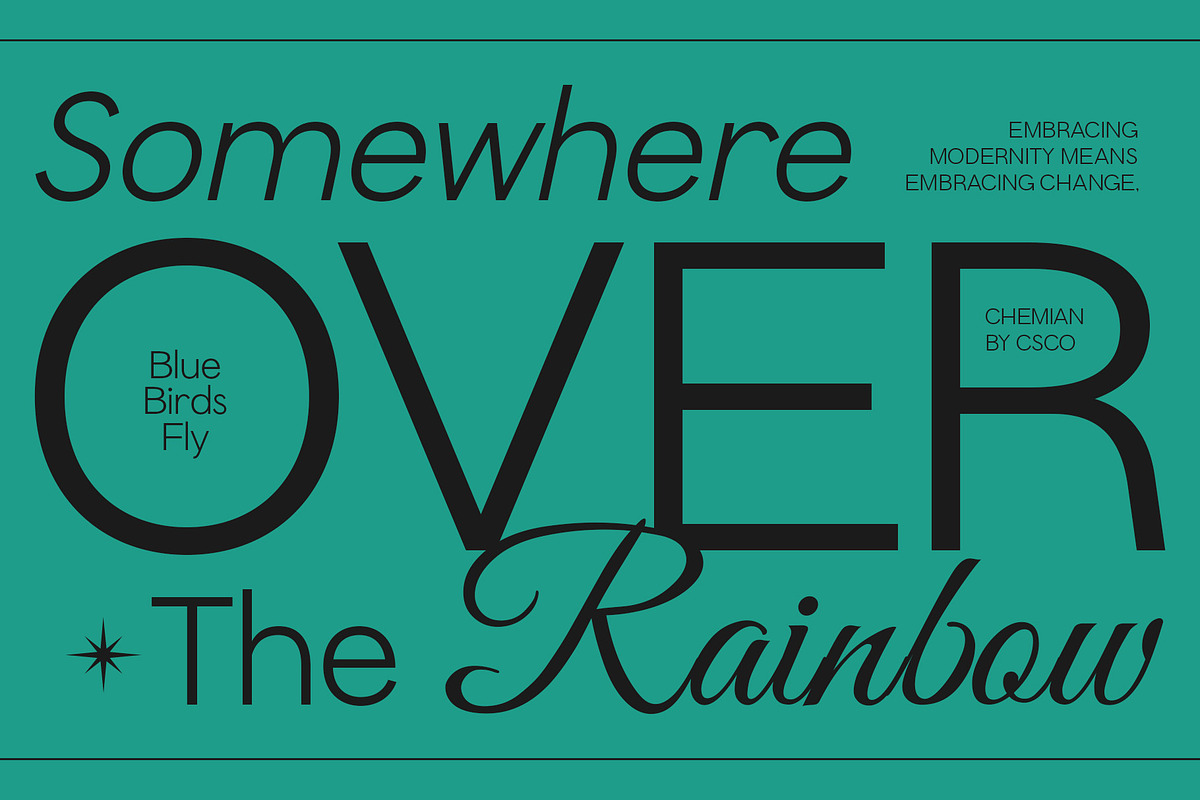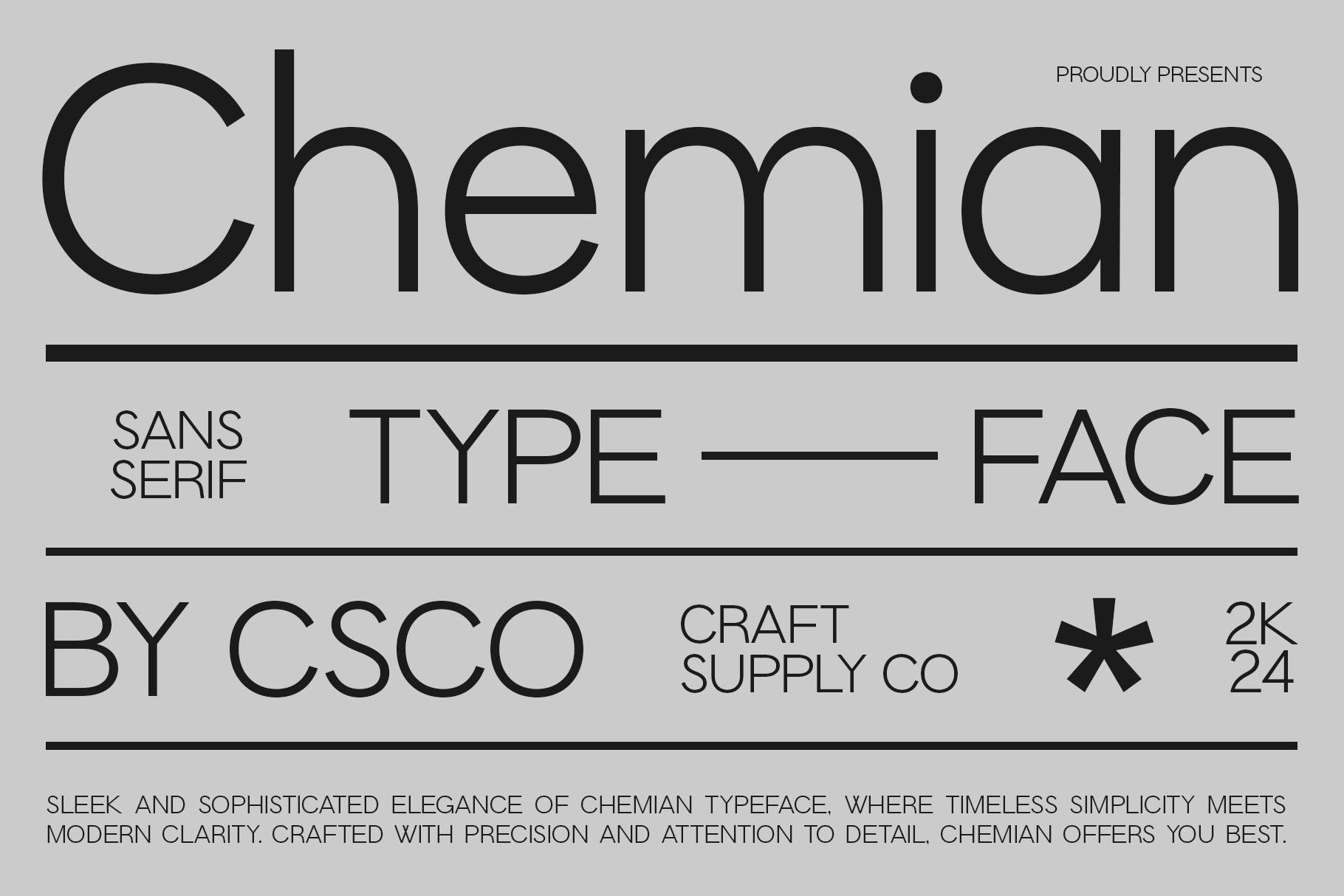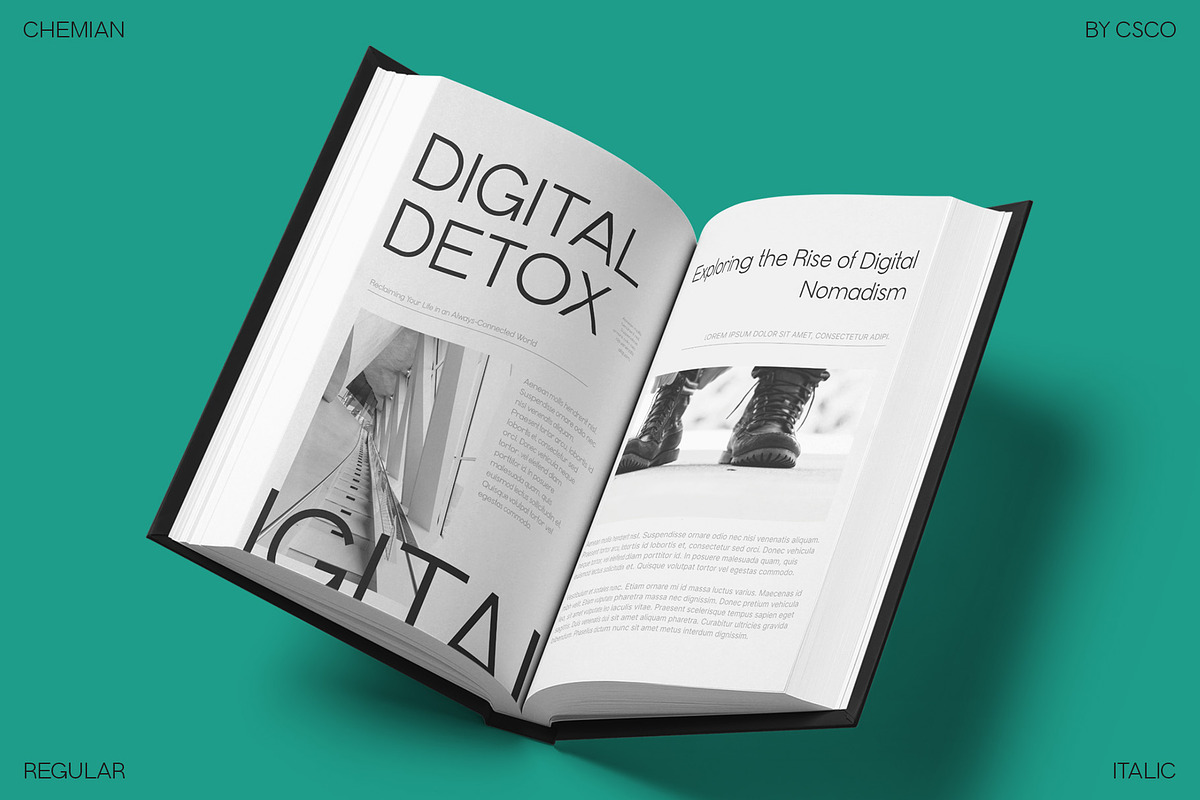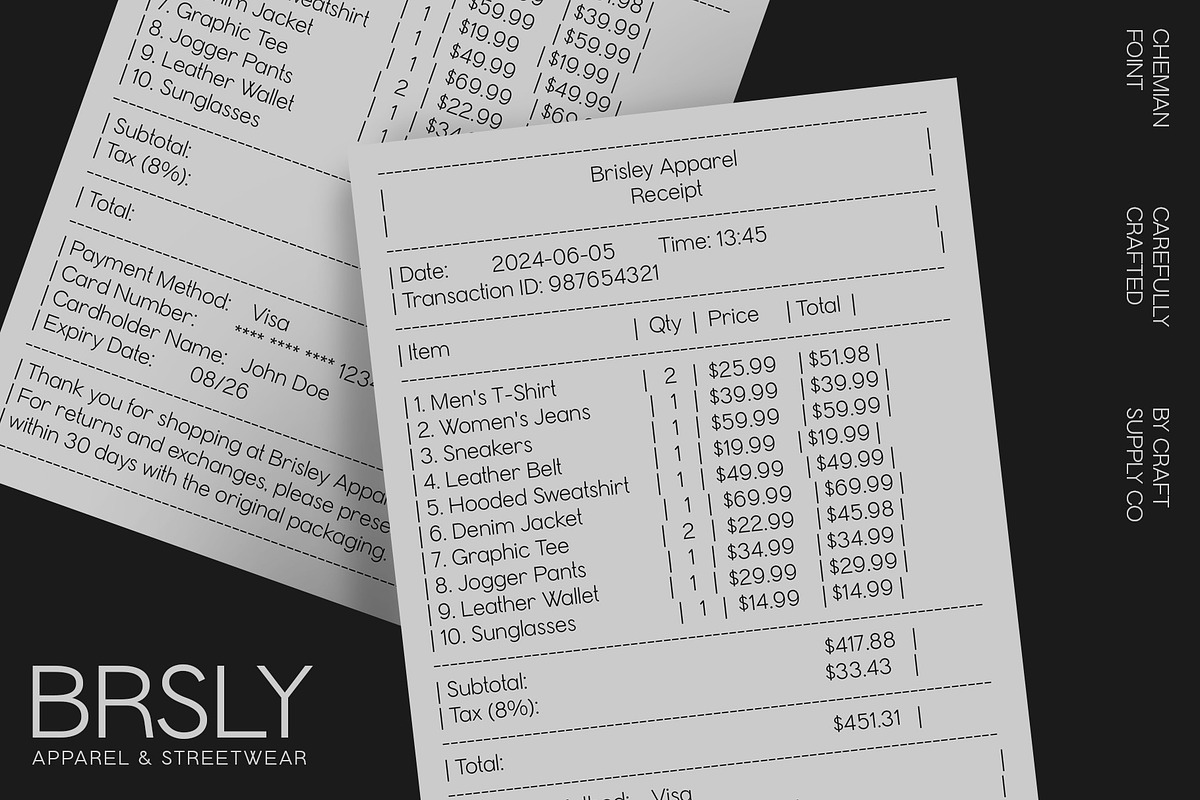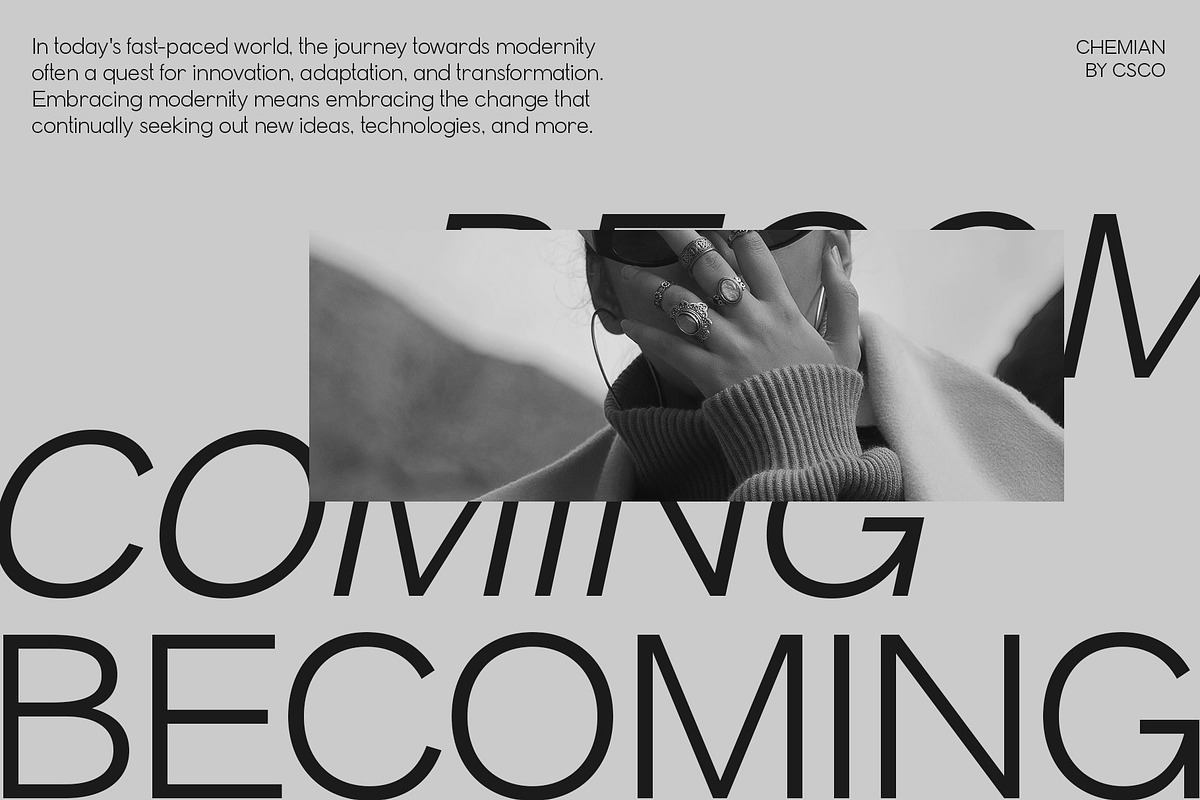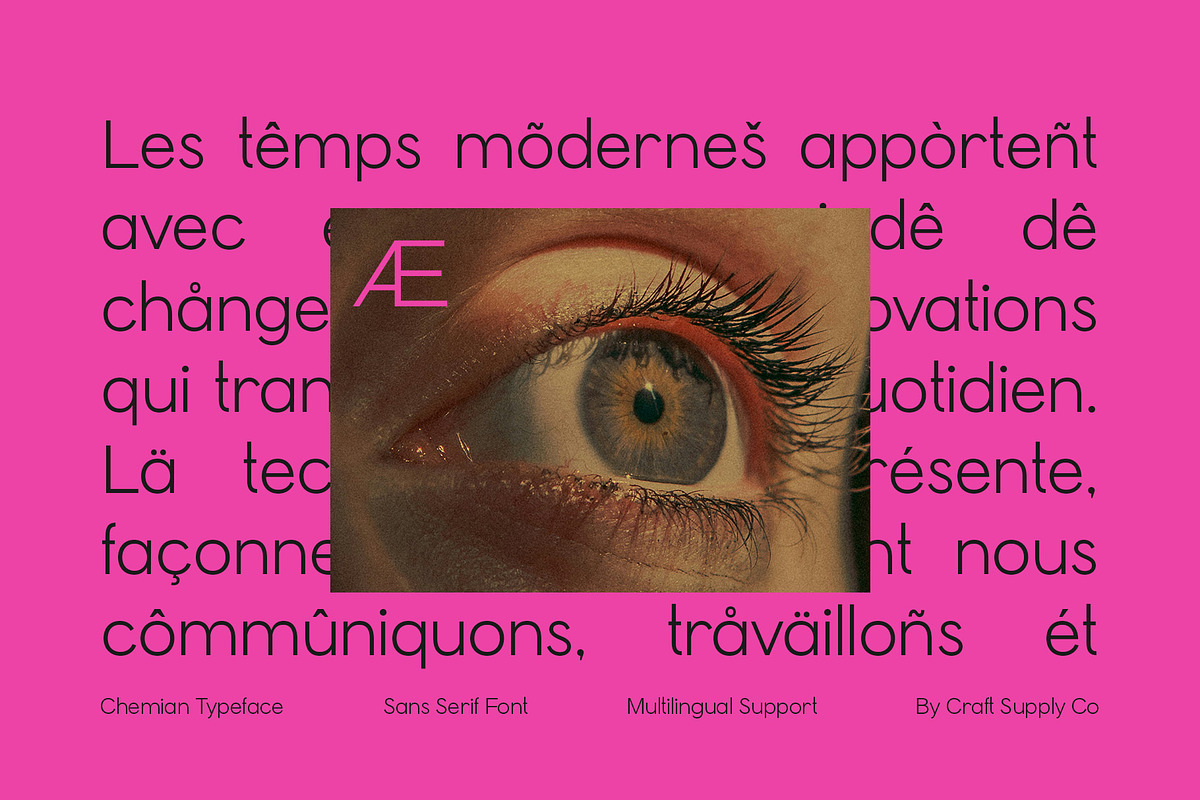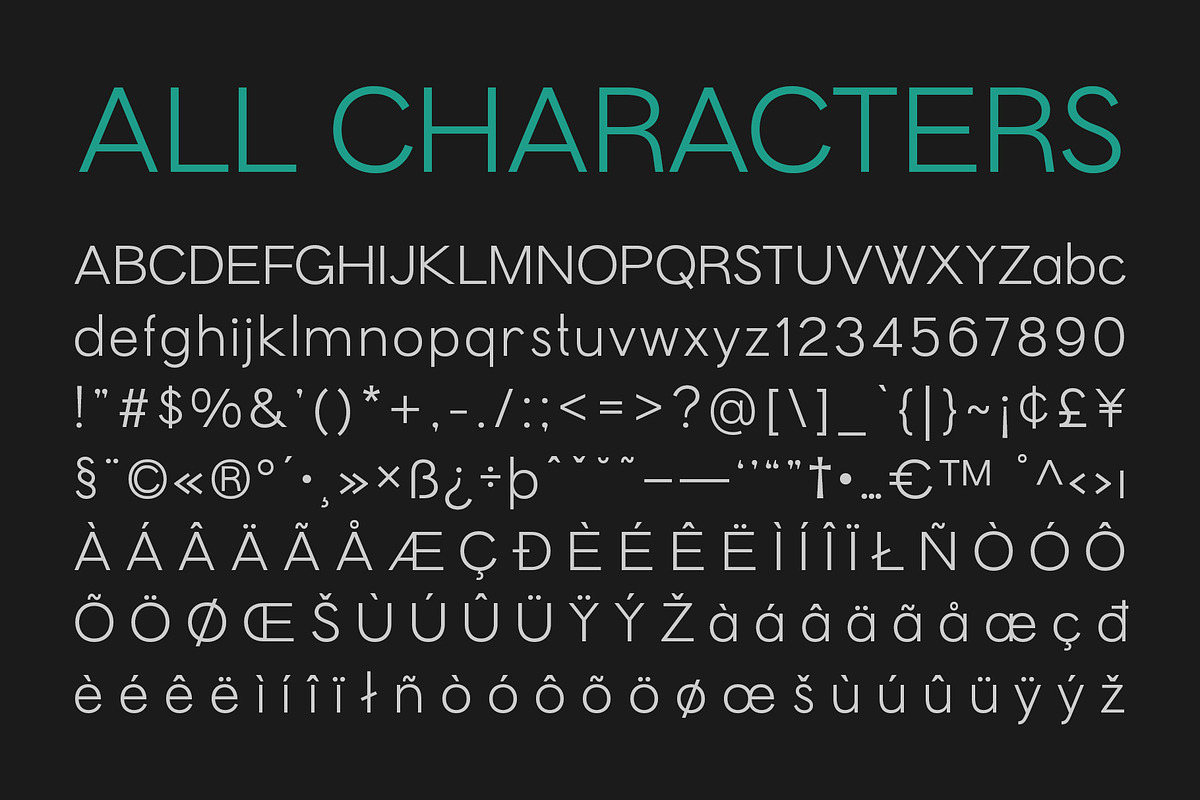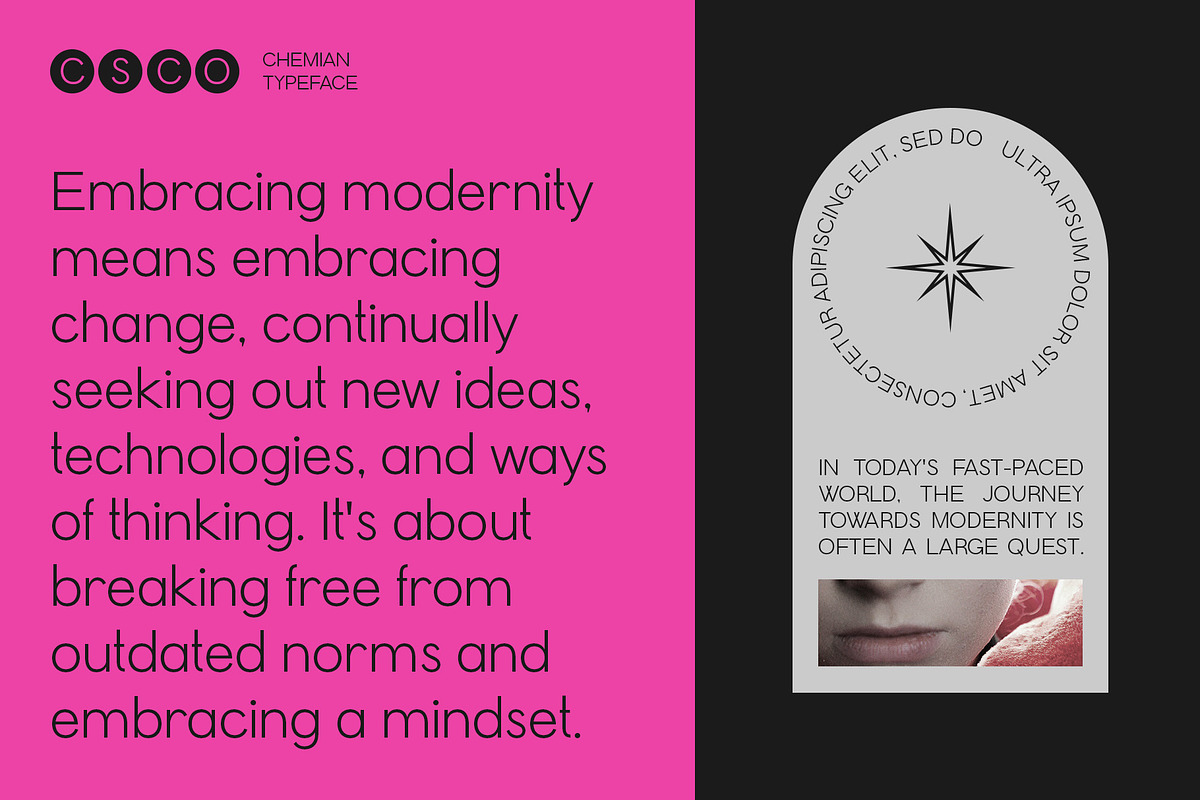
Chemian – Modern Font
Chemian – Modern Font: Clean, Elegant, and Readable
Modern Sans-Serif Font
Introducing Chemian, our modern sans-serif font, featuring a clean, elegant, and readable design. Perfect for professional use in websites, applications, and visual identities, Chemian combines simplicity with sophistication.
Versatile and Professional
With its versatile design, Chemian Font is suitable for a variety of uses, including web design, app interfaces, and corporate branding. Its modern style ensures that your projects look polished and contemporary.
Enhanced Readability
Chemian Font prioritizes readability, making it ideal for digital and print media. Whether used in body text or headlines, this font ensures that your content is easy to read and visually appealing.
Perfect for Modern Designs
Whether you’re developing a website, designing an application, or creating a visual identity, Chemian Font is the perfect choice for projects that require a clean, elegant, and professional look. Its modern sans-serif style ensures that your designs are both functional and stylish.
- Chemian Regular
- Chemian Italic